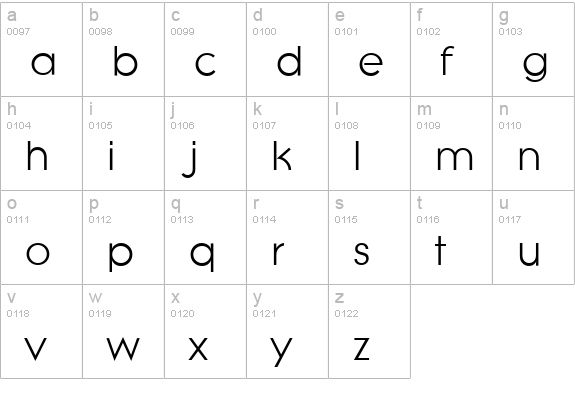
LiteraSerial-Regular is the standard, neutral variant in the LiteraSerial typeface family \xE2\x80\x94 well suited to general body text, paragraphs, and standard typographic work.